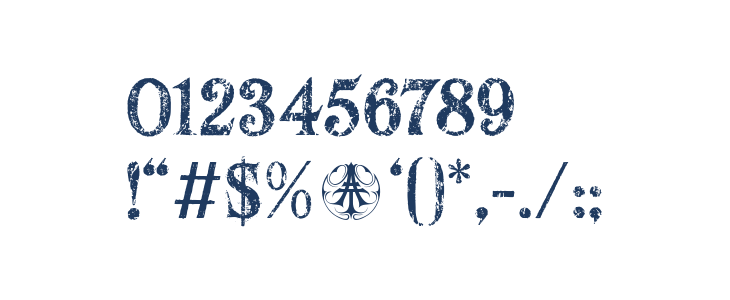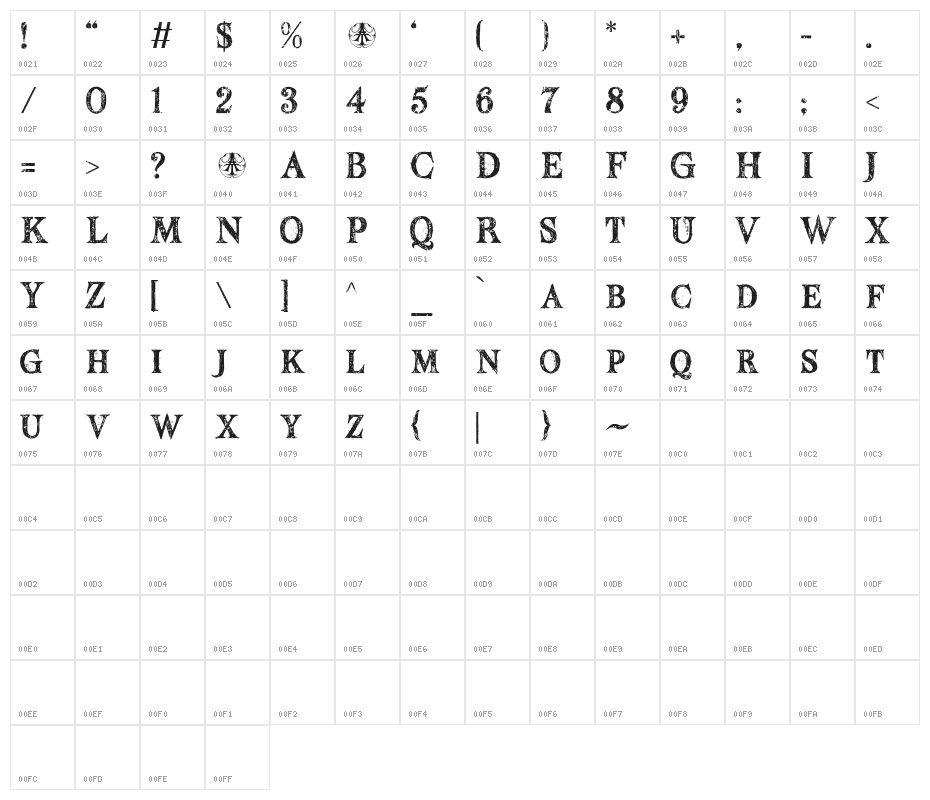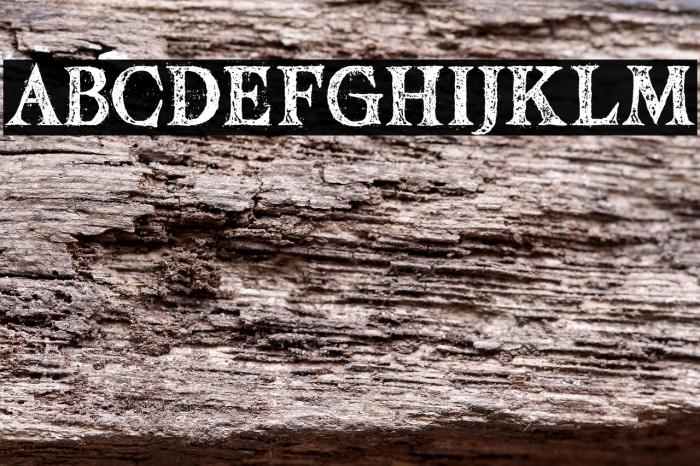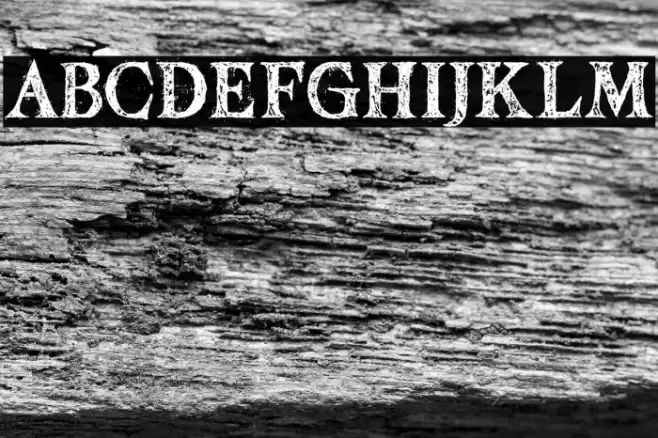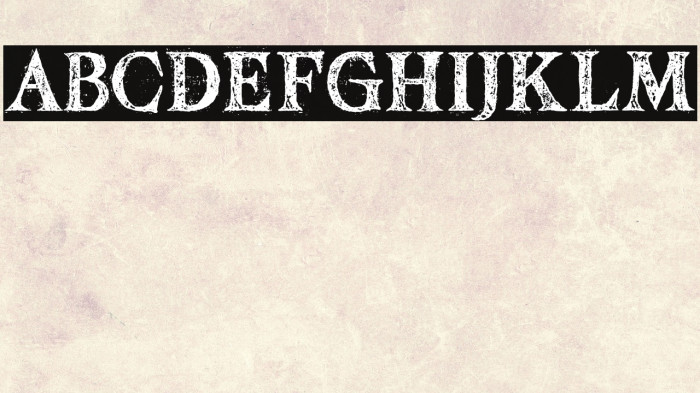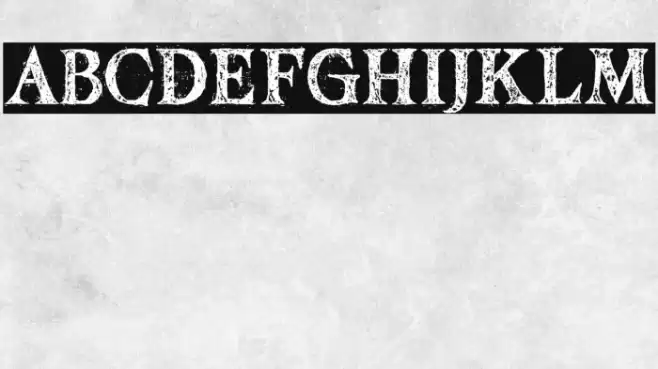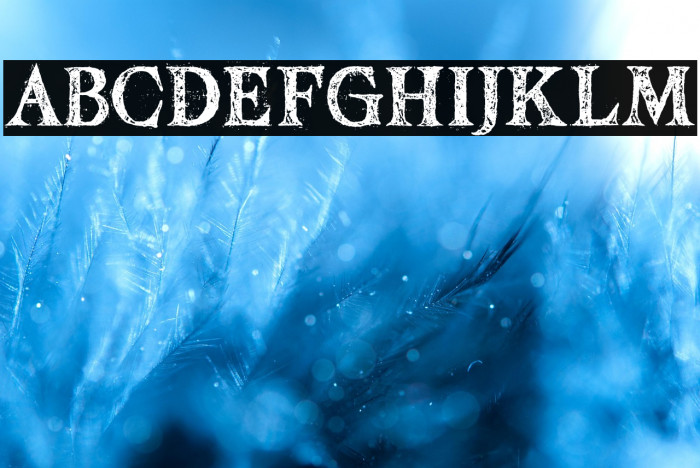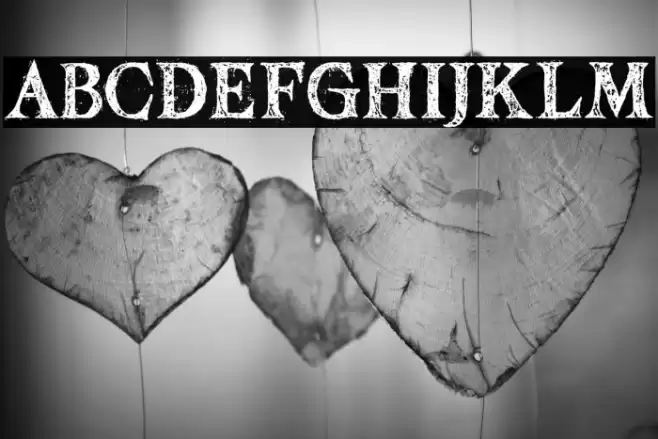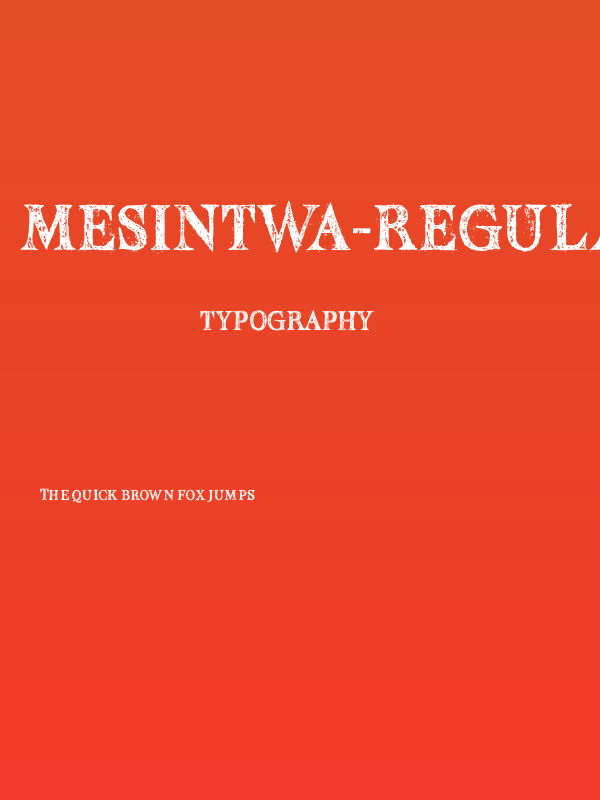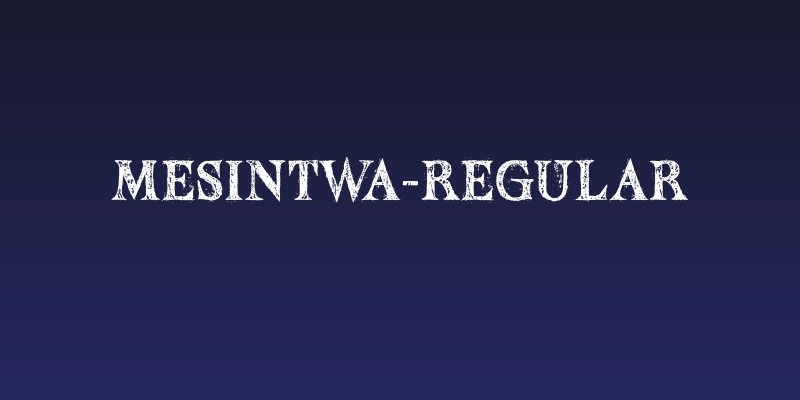
Mesintwa-Regular Font
Mesintwa-Regular Description
This font features a distressed, textured appearance that gives it a vintage and rugged feel. The characters are bold and have a serif style, with noticeable wear and tear effects that add to its rustic charm. The uppercase and lowercase letters maintain a consistent style, with the numbers and special characters following suit. The overall design is reminiscent of old printing techniques, making it ideal for projects that require a touch of nostalgia or a handcrafted look.
| Proposed Projects | Ideal for vintage-themed posters, branding for rustic products, book covers, and any design needing a handcrafted or historical touch. |